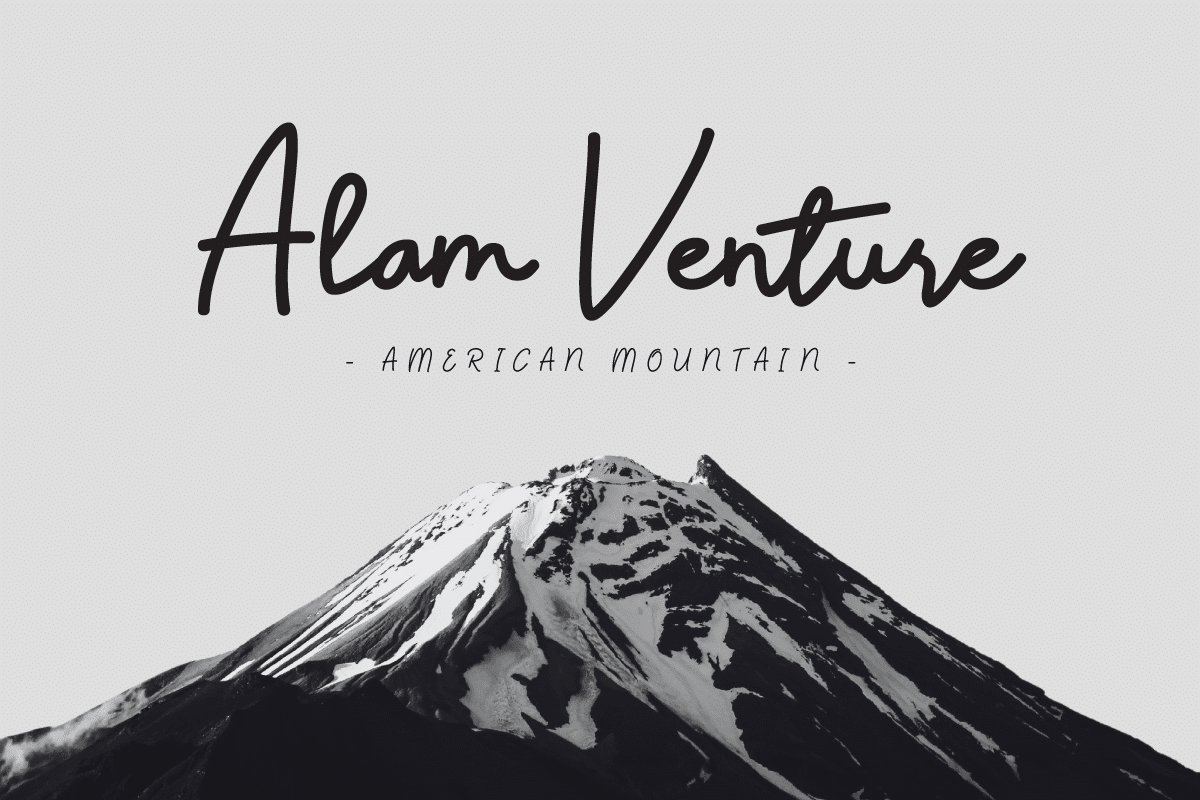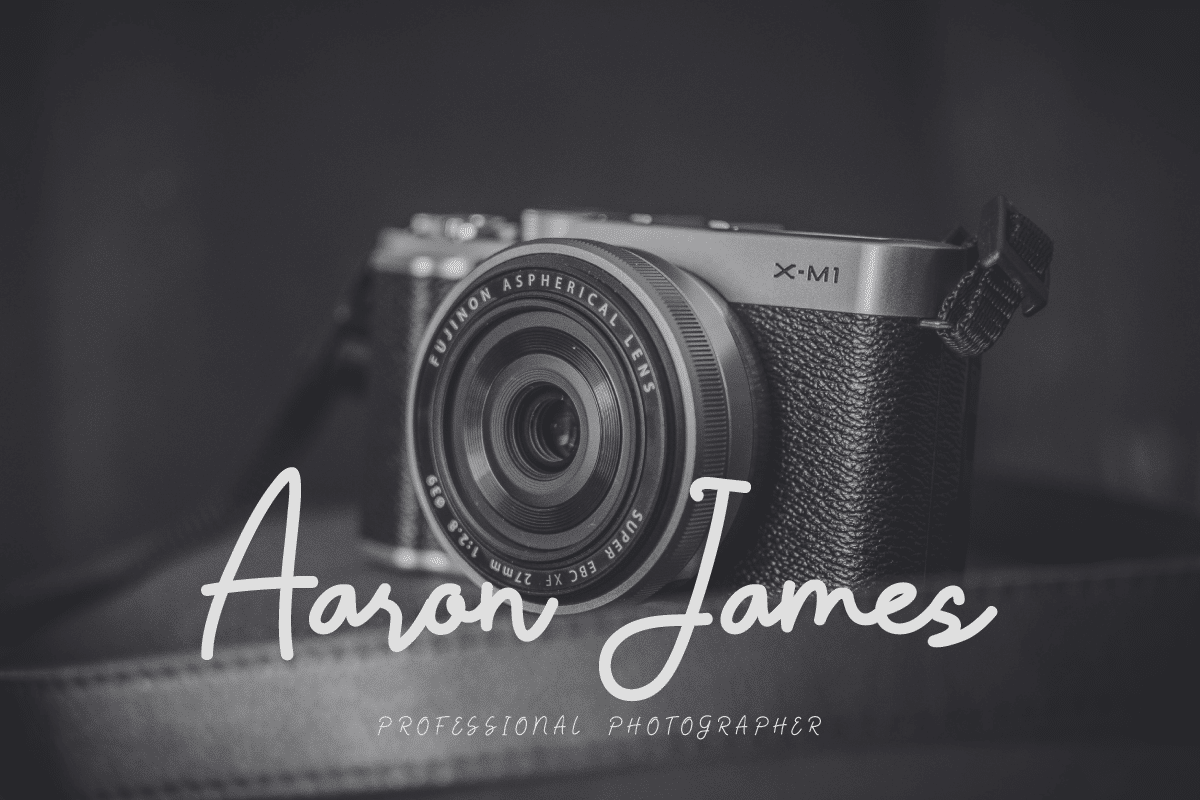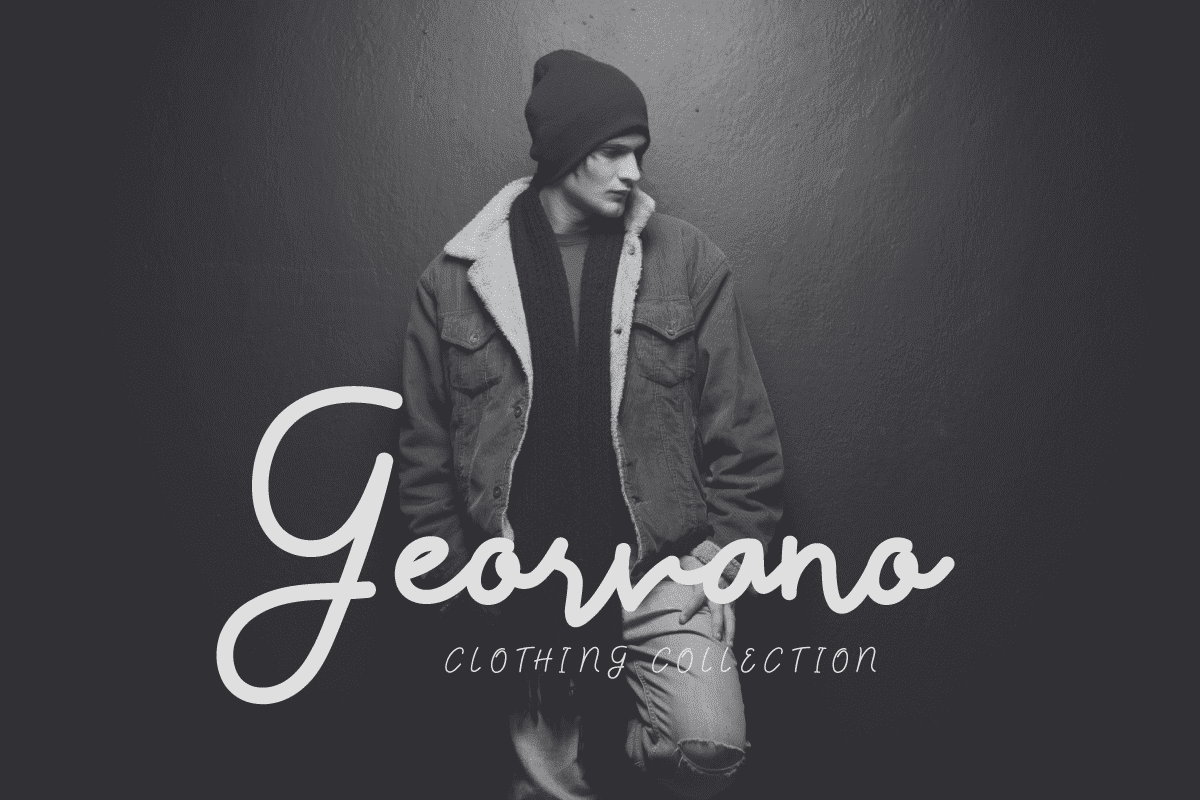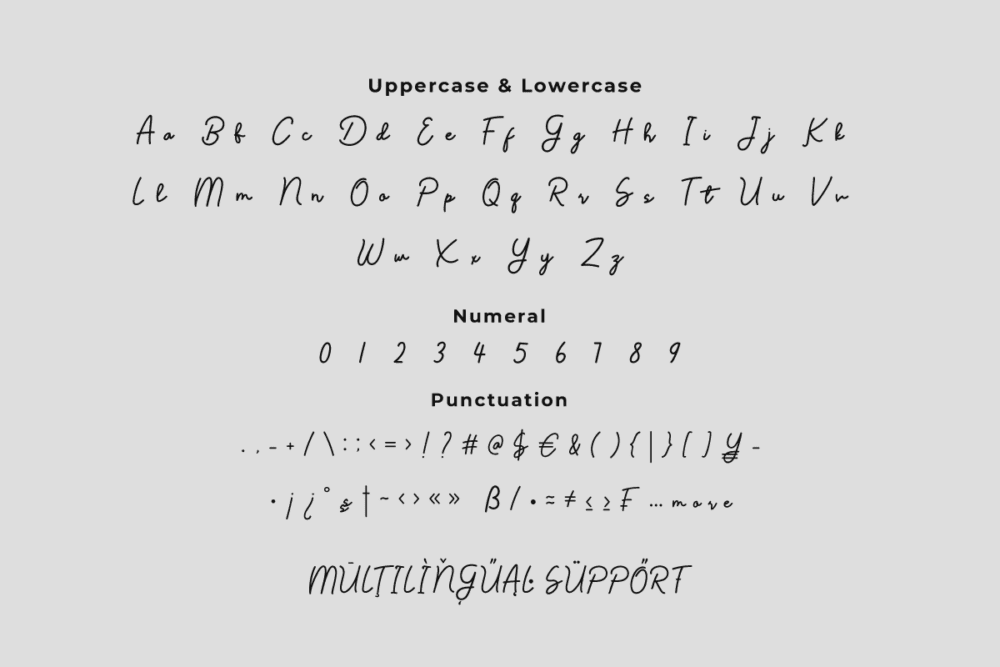
Jaboeran Font
Jaboeran Font bold and modern typeface perfect for striking headlines and eye-catching designs. Ideal for creatives and businesses seeking a contemporary look. Download now!